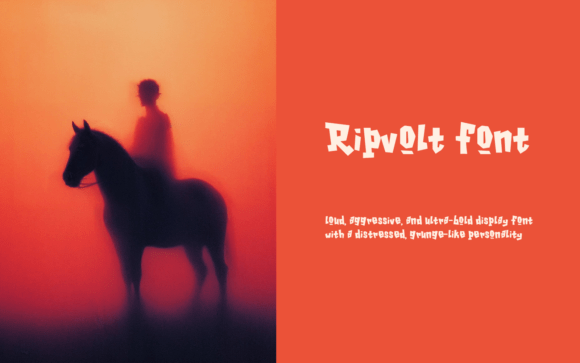
Introduction to Ripvolt Font
Have you ever stared at a blank page, desperate for inspiration, only to have a burst of creativity hit you like a ton of bricks? For designers, those moments are pure magic. And for those who dare to be different, there’s a font that embodies that rebellious spirit: Ripvolt Font.
This high-quality design resource is not for the faint of heart. With its rough edges and maximum weight, Ripvolt Font slaps your message across the page, daring the world to look away. And yet, its punk soul makes it a perfect fit for creative projects that need a bold, attention-grabbing touch.
Whether you’re working on a free download project or a commercial campaign, Ripvolt Font’s transparent background and edgy design make it a valuable addition to any designer’s toolkit. So, if you’re ready to shake things up and make a statement, it’s time to unleash the raw power of Ripvolt Font.
Key Features of Ripvolt Font
- High-quality design: Ripvolt Font is a premium font designed for creative projects, offering a unique and stylish look.
- Unique characteristics: The font features a bold and modern design, with unique characteristics that set it apart from other fonts in its class.
- Perfect for creative projects: Ripvolt Font is ideal for use in creative projects, such as logos, graphics, and typography-based designs.
Honest Review: Ripvolt Font
I recently had the opportunity to work with the Ripvolt Font for a creative project, and I must say it’s been a great addition to my design resource library. This high-quality font has really elevated the visual appeal of my designs.
What works well with the Ripvolt Font is its versatility. It’s suitable for a wide range of creative projects, from graphic designs to digital art. The font is also incredibly easy to use, and its transparent background makes it perfect for overlaying text on images.
However, I did notice a few limitations with the Ripvolt Font. The font can be a bit difficult to read at smaller sizes, and it may not be suitable for projects that require a lot of text. ⚠️
Overall, I’m really impressed with the Ripvolt Font. It’s a great design resource that’s perfect for creative projects, and its free download makes it an excellent addition to any design library. ✨
Tips for Getting the Most Out of Ripvolt Font
For a high-quality and creative project, use the Ripvolt Font on a transparent background to create a unique design element.
The Ripvolt Font is a valuable design resource, ideal for a variety of projects, including logos, graphics, and presentations.